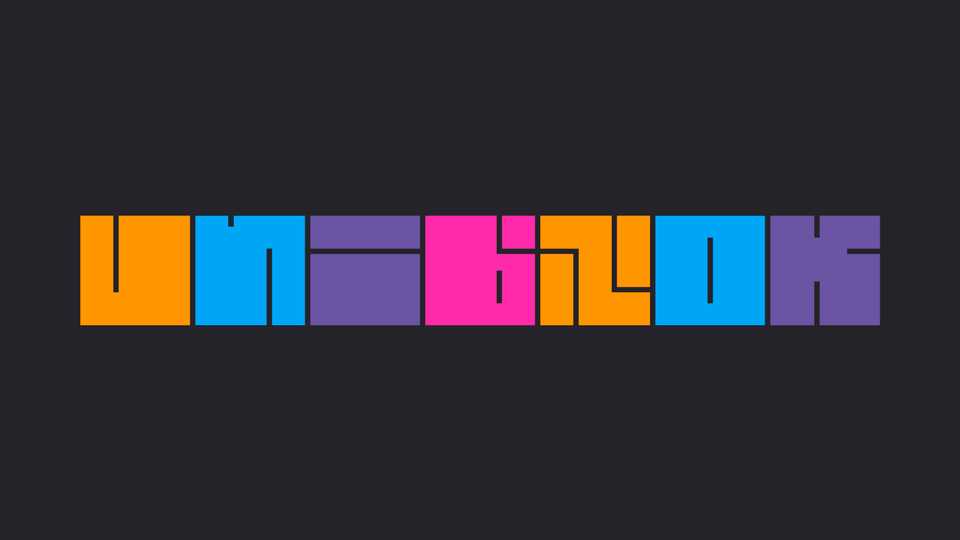
Download Uniblok font, a creative block display typeface based on the grid. Uniblok font perfectly fits for posters and other display graphics.
Designer: James Puckett